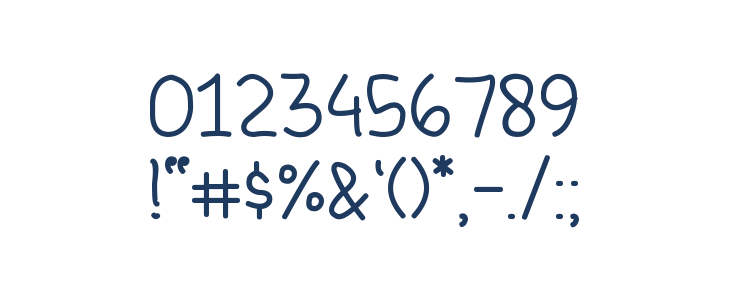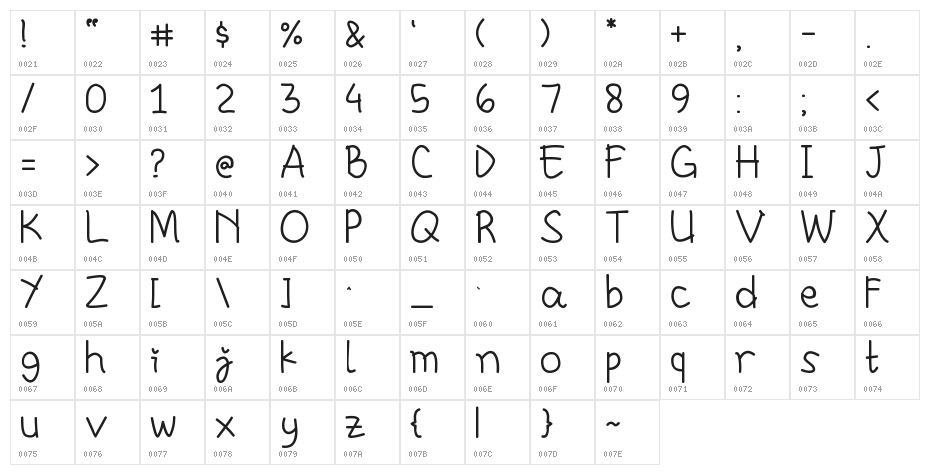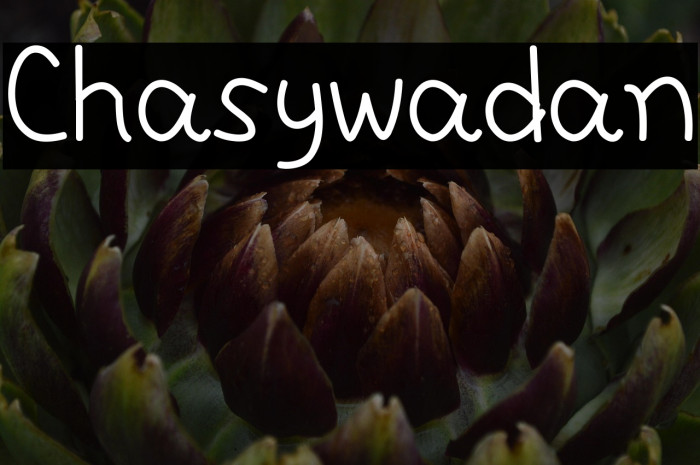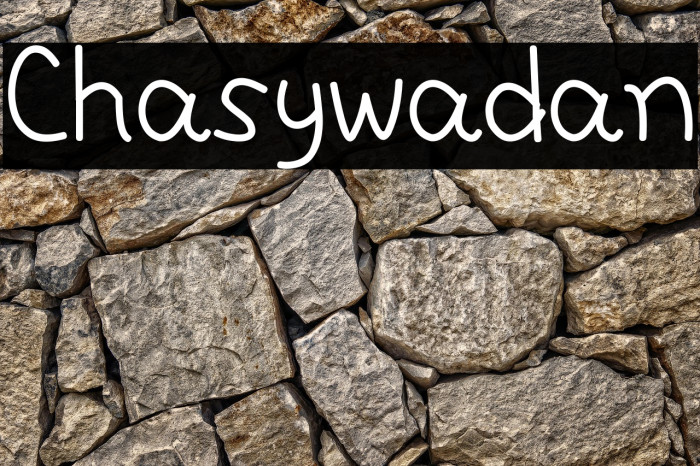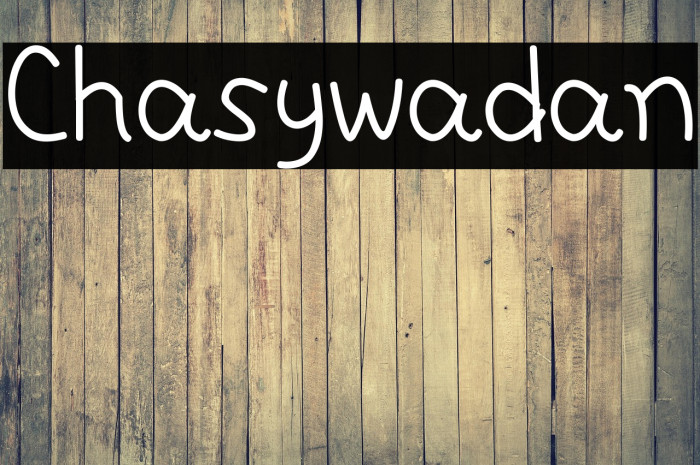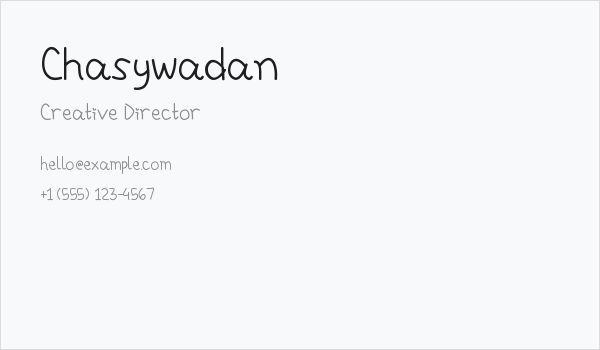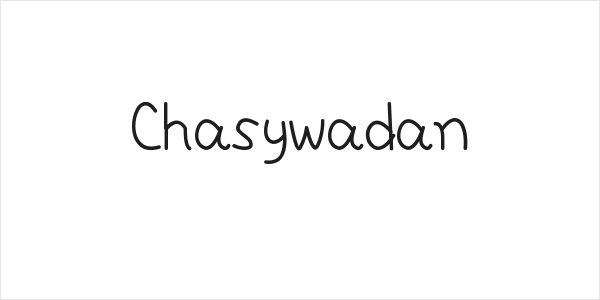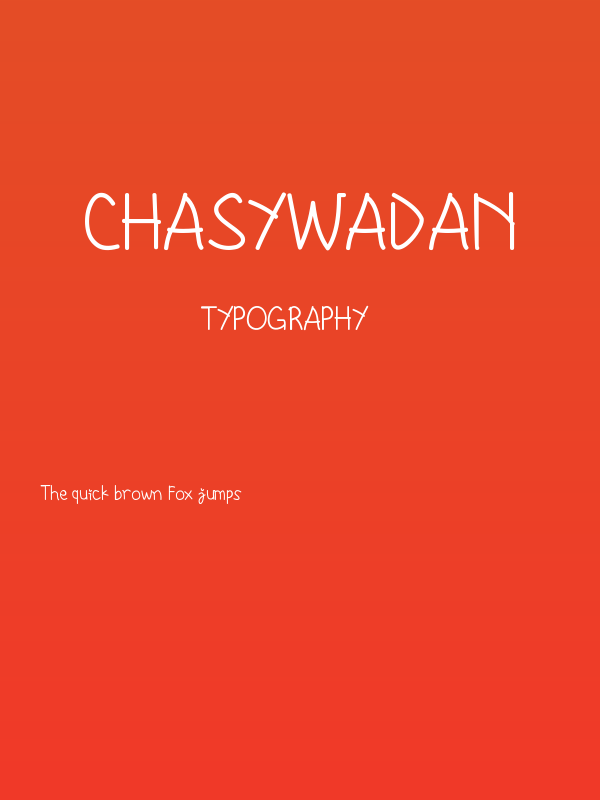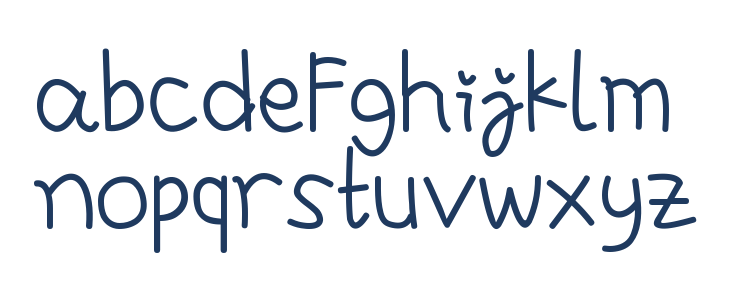
Chasywadan Font
Chasywadan Description
This playful and whimsical font features a handwritten style that exudes a casual and friendly vibe. The characters are slightly irregular, adding a touch of authenticity and charm. The uppercase letters are tall and narrow, while the lowercase letters maintain a consistent height, creating a harmonious balance. The numbers and special characters follow the same playful aesthetic, making them perfect for informal and creative projects. The font's unique style is ideal for capturing attention and conveying a sense of fun and creativity.
| Proposed Projects | Ideal for children's books, greeting cards, playful branding, and creative social media graphics. |